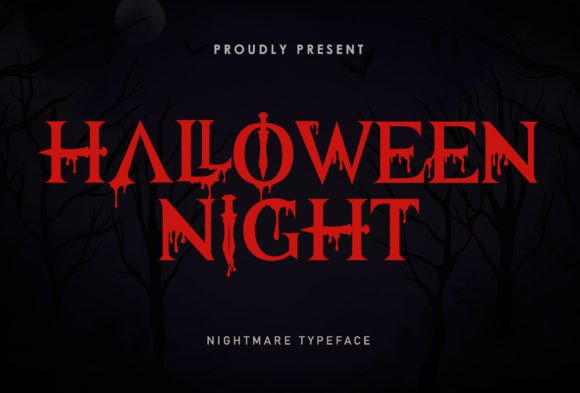
Introducing Halloween Night Font, the ultimate choice for unleashing your creativity and taking your designs to new and extraordinary heights. Crafted by the talented team at rulihoki studio, this bold and modern decorative font is here to revolutionize your projects.
With its captivating and eye-catching appeal, Halloween Night Font is specifically designed to make your creations stand out from the crowd. Whether you're working on a spine-chilling horror design or seeking a unique alternative for your display projects, this font has got you covered.
Unlock the full potential of your imagination with the PUA encoded Halloween Night Font. This means you have seamless access to a vast array of glyphs and swashes, allowing you to effortlessly add intricate and captivating details to your designs. Let your creativity run wild and watch as your ideas come to life!
Immerse your audience in a world of wonder and intrigue with Halloween Night Font. Its captivating aesthetic and modern flair make it the perfect choice for a serious t-shirt design that demands attention. Stand out from the crowd and make a bold statement with this font that is tailor-made for capturing the imagination of your audience.
Experience the power of Halloween Night Font as it elevates your designs to new heights. Its versatility knows no bounds, allowing you to explore endless possibilities and create designs that are truly one-of-a-kind. Prepare to mesmerize your audience with a font that effortlessly blends style, creativity, and emotion.
Don't settle for ordinary when you can have extraordinary. Step into a world of endless possibilities with Halloween Night Font. Unleash your creativity, captivate your audience, and make a lasting impression with this font that promises to take your designs to the next level.